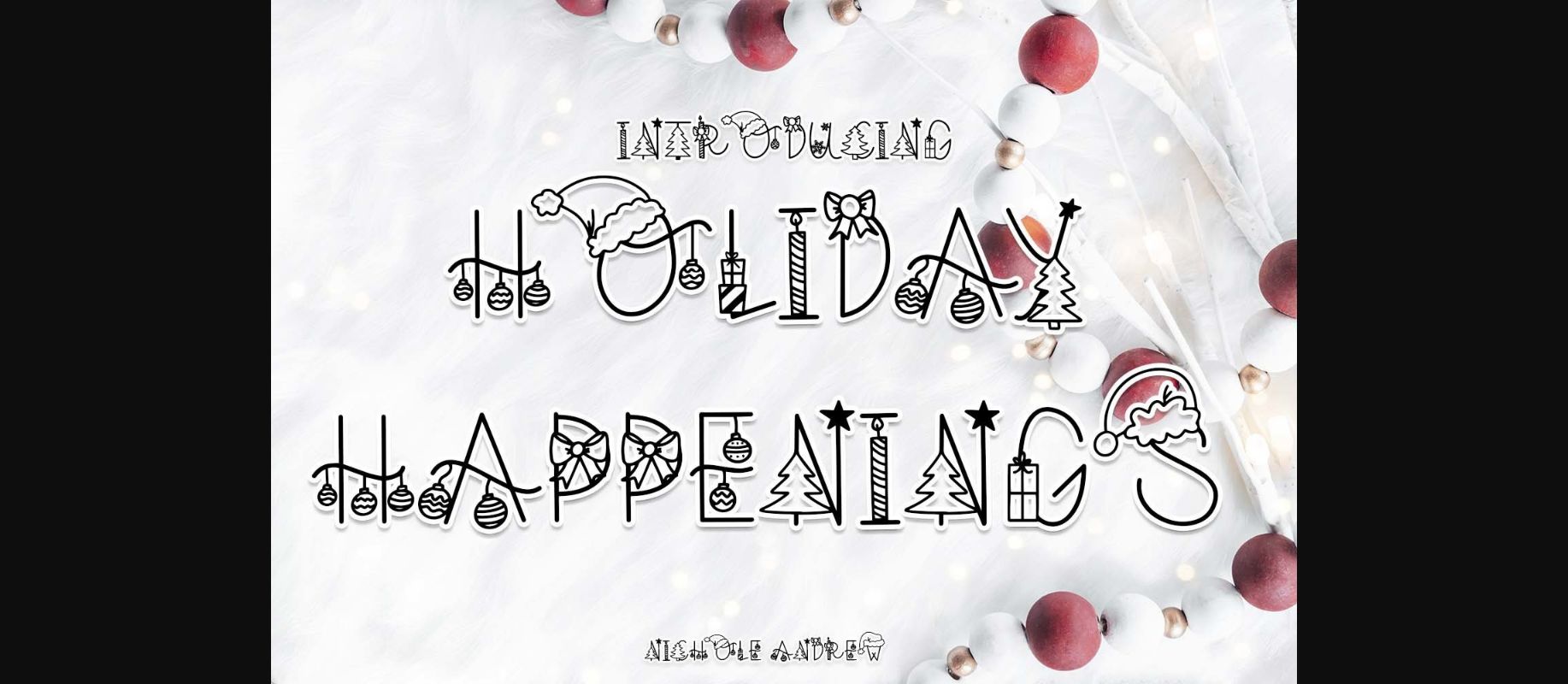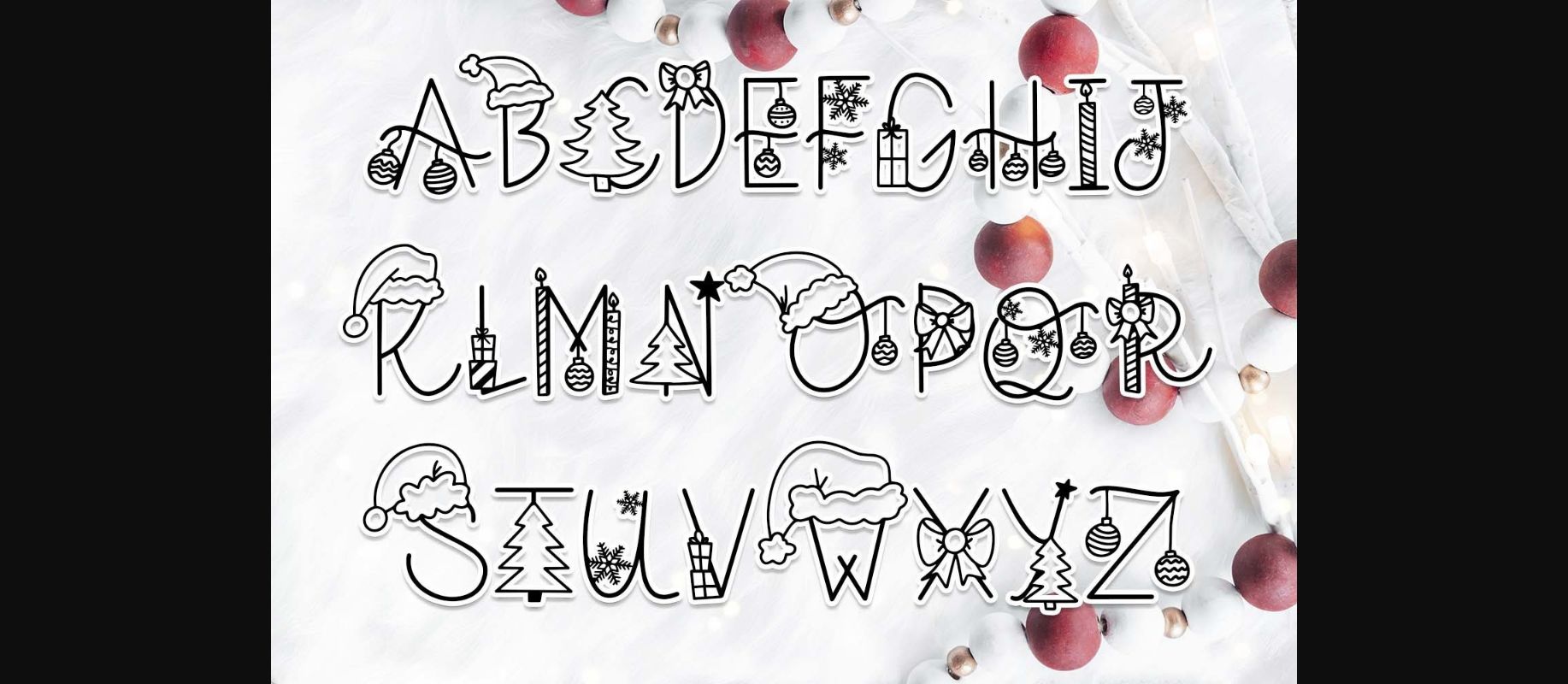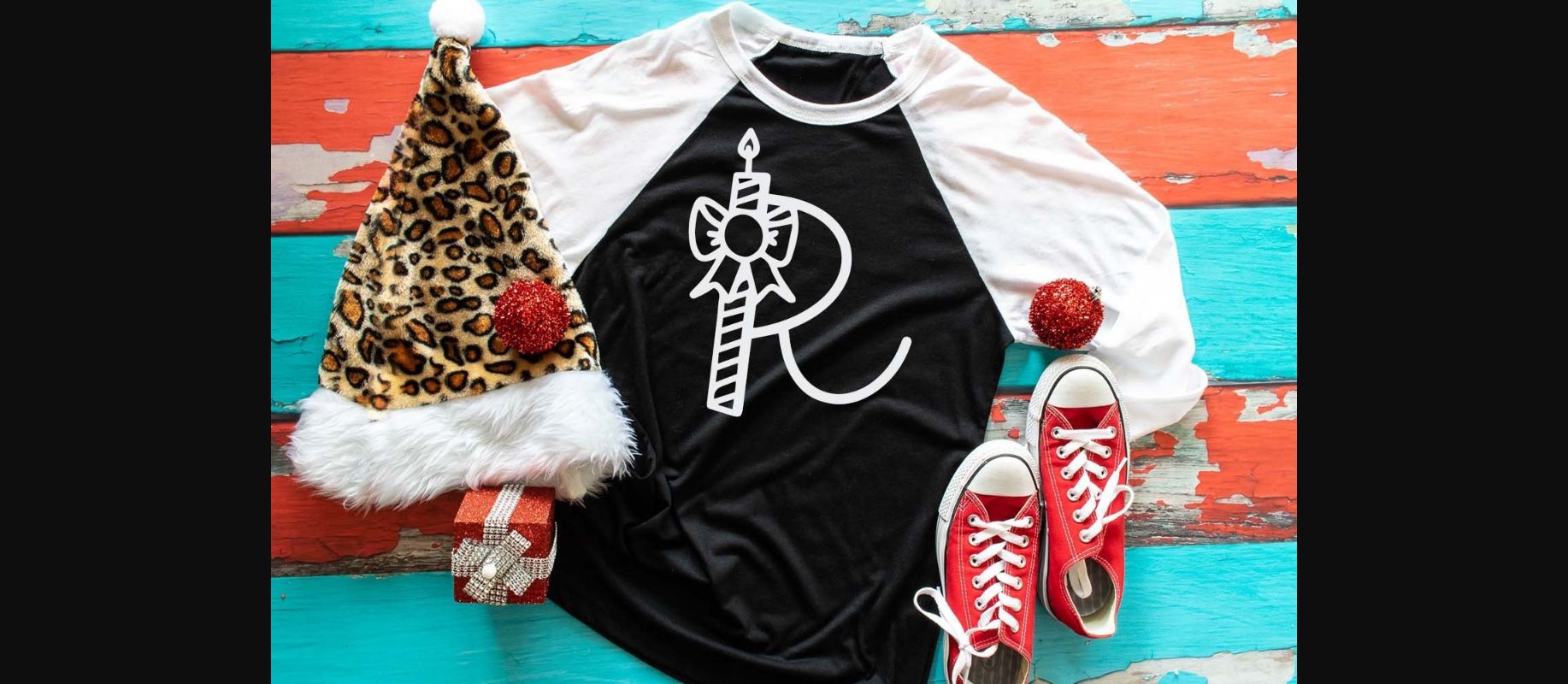
Holiday Happenings Font
About Holiday Happenings Font
Introducing Holiday Happenings, a fun, and festive decorative display font. This unique Holiday typeface includes doodles for each letter. Holiday Happenings is great for personalizing clothing, water bottles, notebooks, pillowcases, and more! Use Holiday Happenings for your Christmas projects!